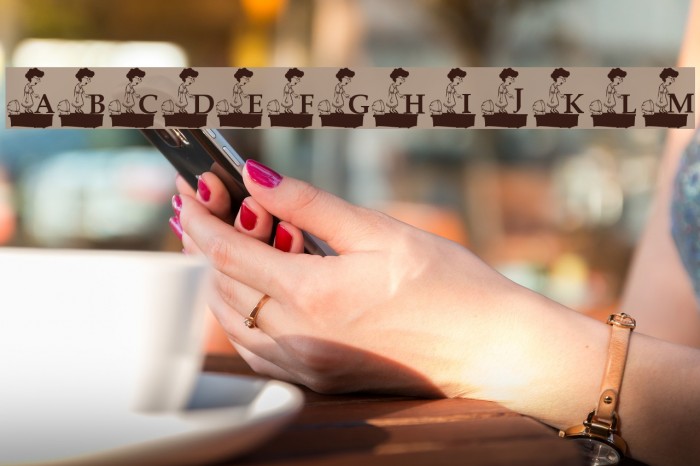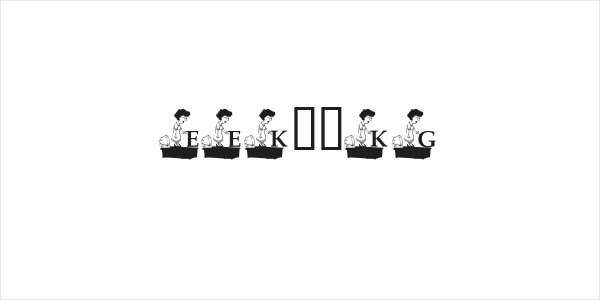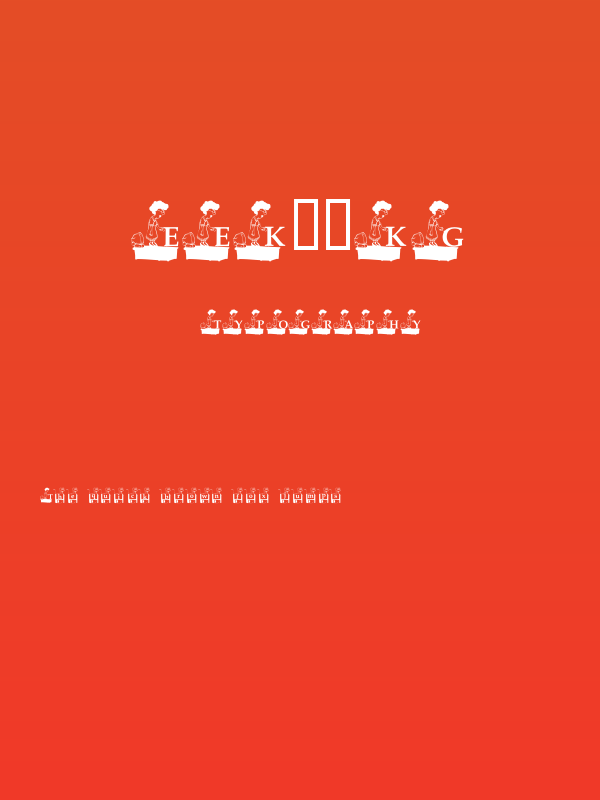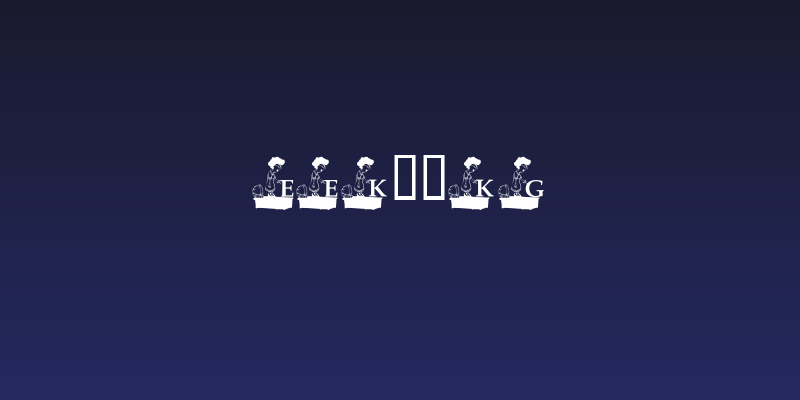
EEK!_KG Font
| Gesamtstil | Playful, Whimsical, Decorative |
| Anwendungsfall | Logos, Headlines, Posters |
| Vorgeschlagene Projekte | Ideal for children's books, playful branding, themed event invitations, and creative posters. |